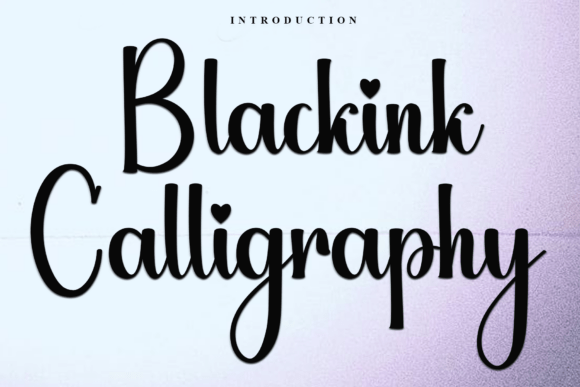
The Magic of Blackink Calligraphy Font: A Festive Holiday Companion
Blackink Calligraphy Font is a true gem, and here’s what makes it shine:
- ✨ Festive and merry vibe that’s perfect for the holiday season
- ✅ Decorative elements and whimsical flair that add a touch of enchantment to your designs
While Blackink Calligraphy Font is a fantastic addition to any designer’s toolkit, there are a few minor quirks to keep in mind:
- ⚠️ Some users might find the font a bit too ornate for certain projects, so it’s essential to balance it with simpler elements
- 🤔 The font’s playful nature might not be suitable for very formal or corporate designs
The Story Behind Blackink Calligraphy Font
Blackink Calligraphy Font was designed with the holiday season in mind. The creator, a talented typographer, aimed to craft a font that would capture the magic and wonder of this special time of the year. With its decorative elements and whimsical flair, Blackink Calligraphy Font is the perfect companion for designers looking to add a touch of enchantment to their holiday designs.
| What is Blackink Calligraphy Font? | Blackink Calligraphy Font is a festive and merry typeface designed specifically for the holiday season. |